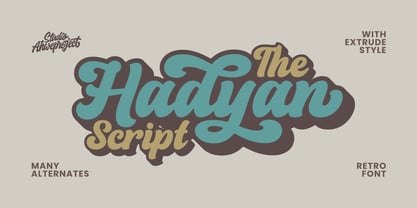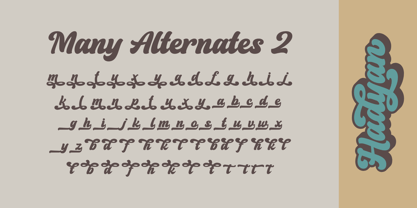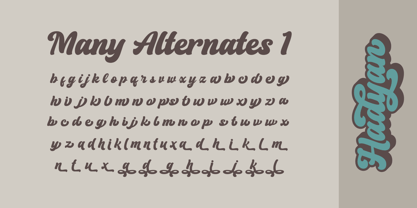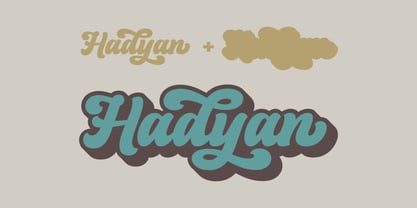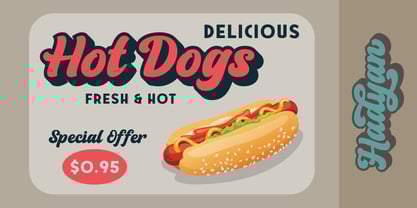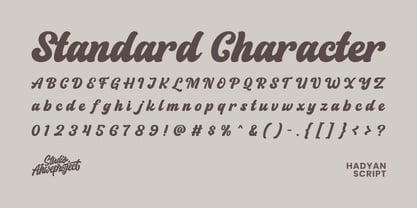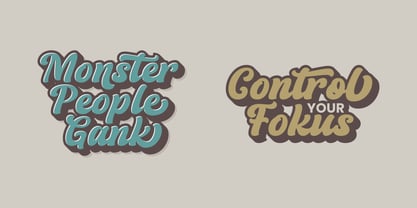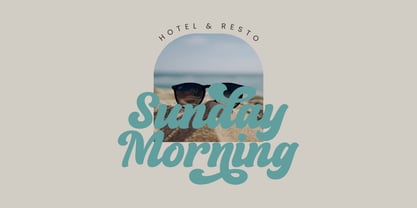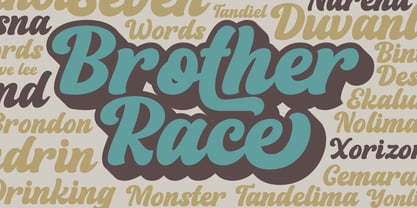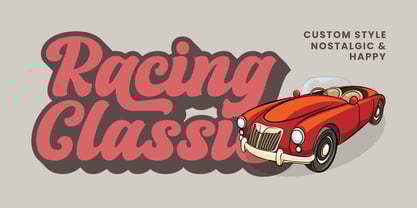
Hadyan
by ahweproject
The Hadyan Font Family was designed by Dida Ahluddin and published by ahweproject. Hadyan contains 2 styles and family package options.
Hadyan Font is a bold and retro styled handwritten font. This font reads as strong, confident, and dynamic and can add tons of nostalgic character to your designs. Add it to your vintage-inspired posters, stickers, apparel, or social media posts and you will definitely impress your audience.